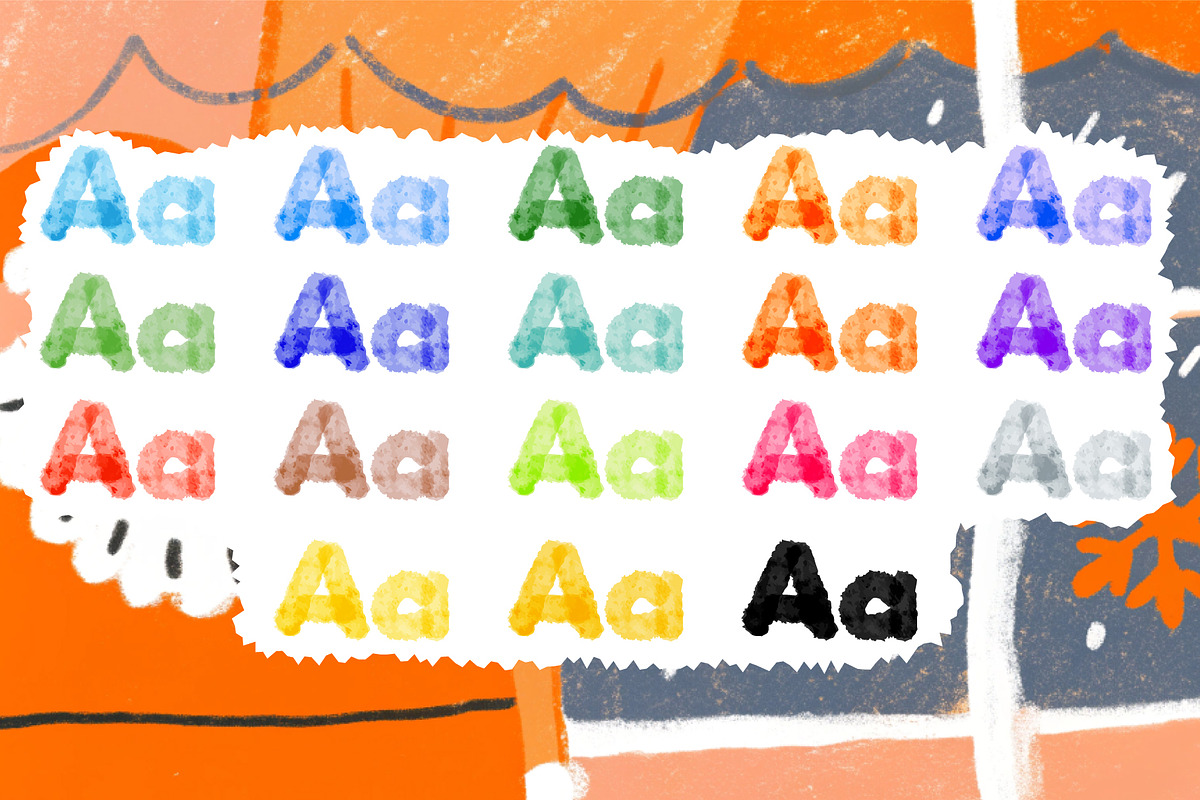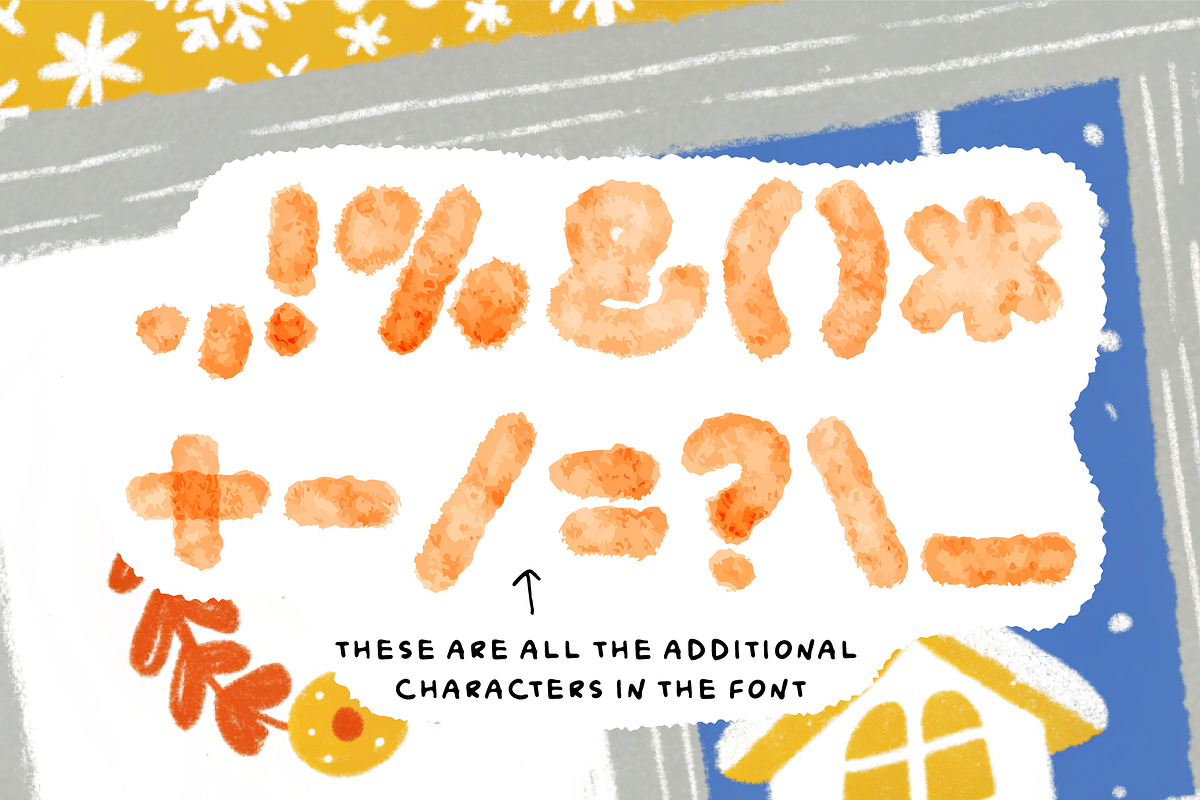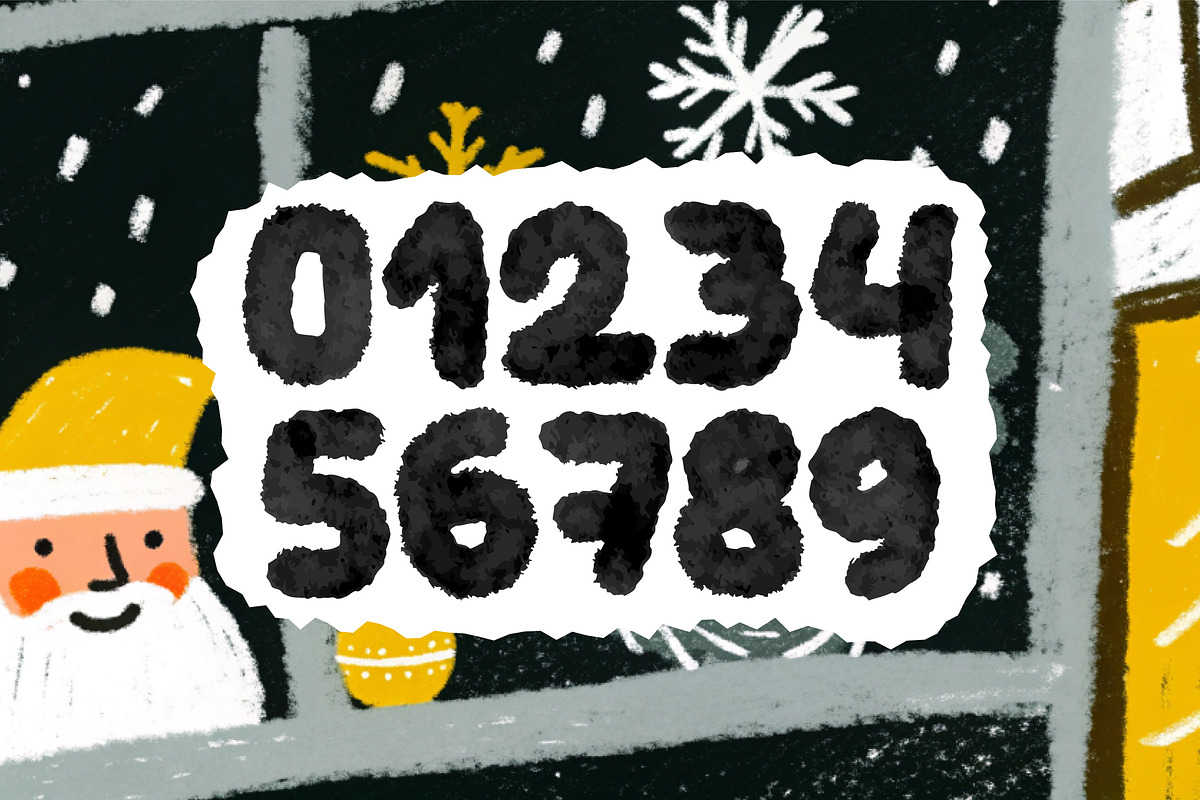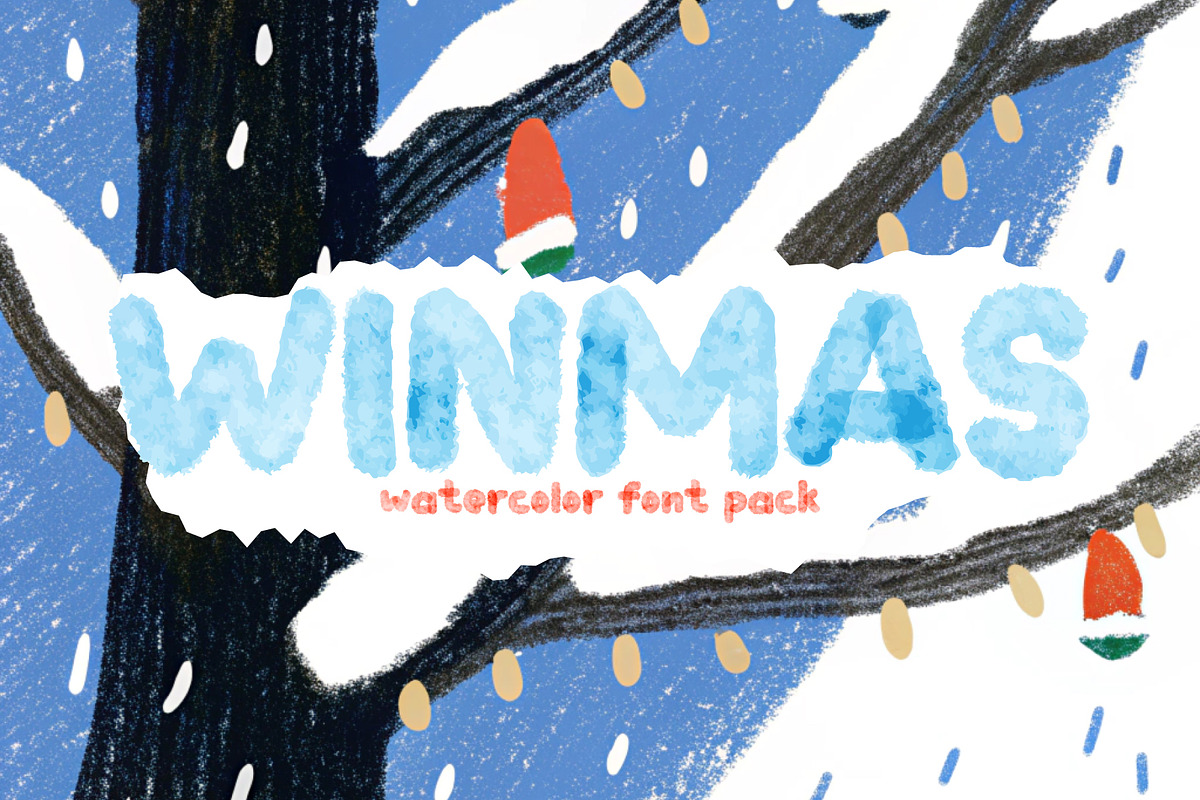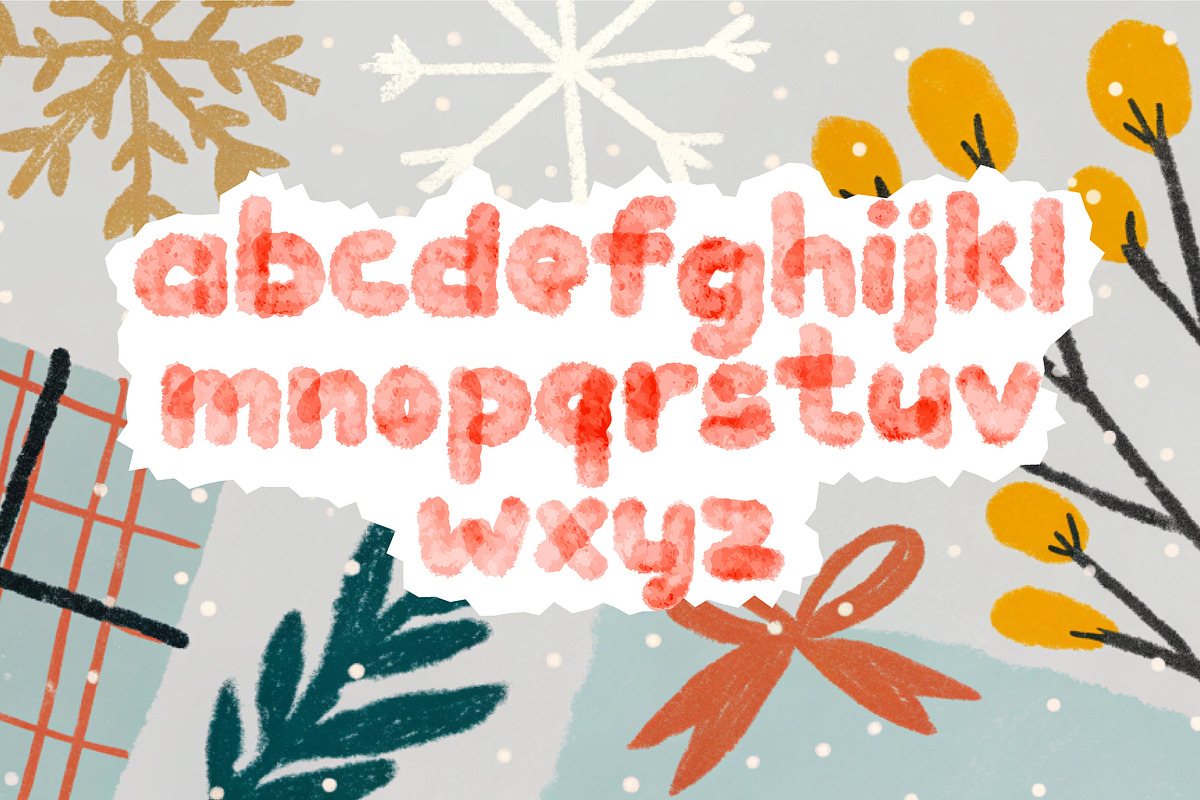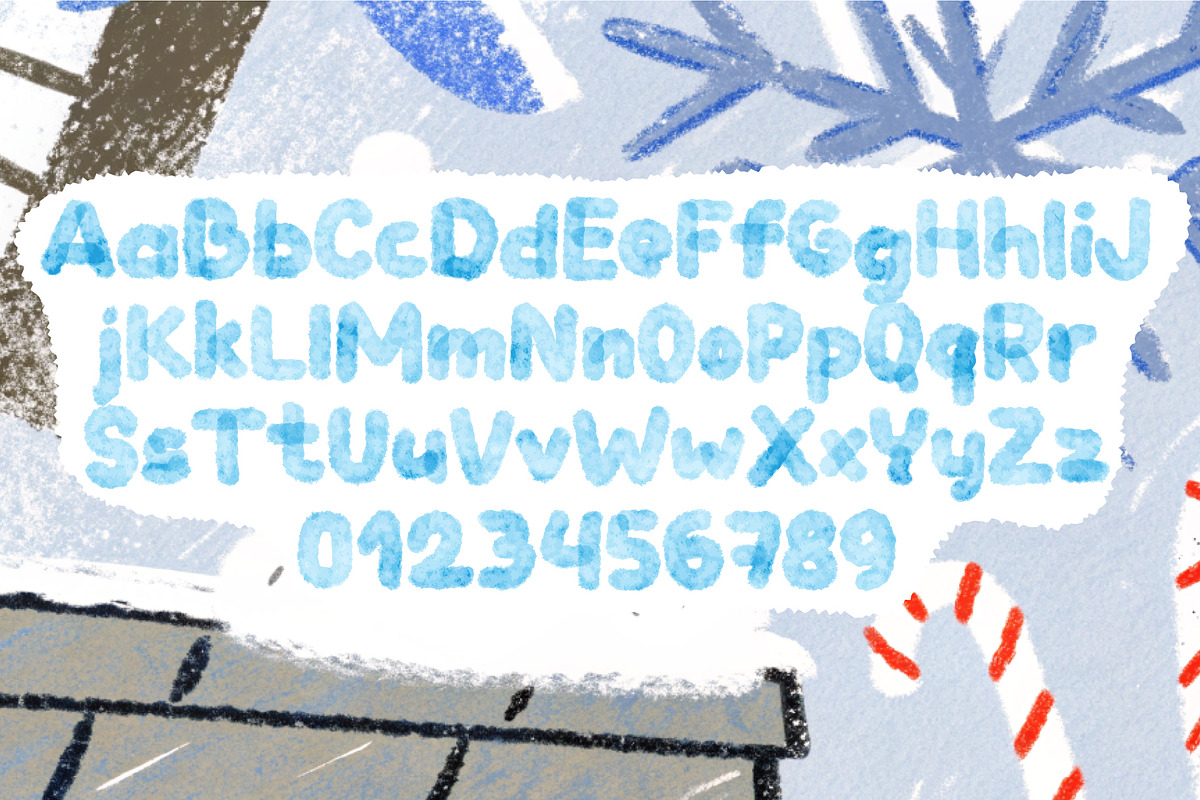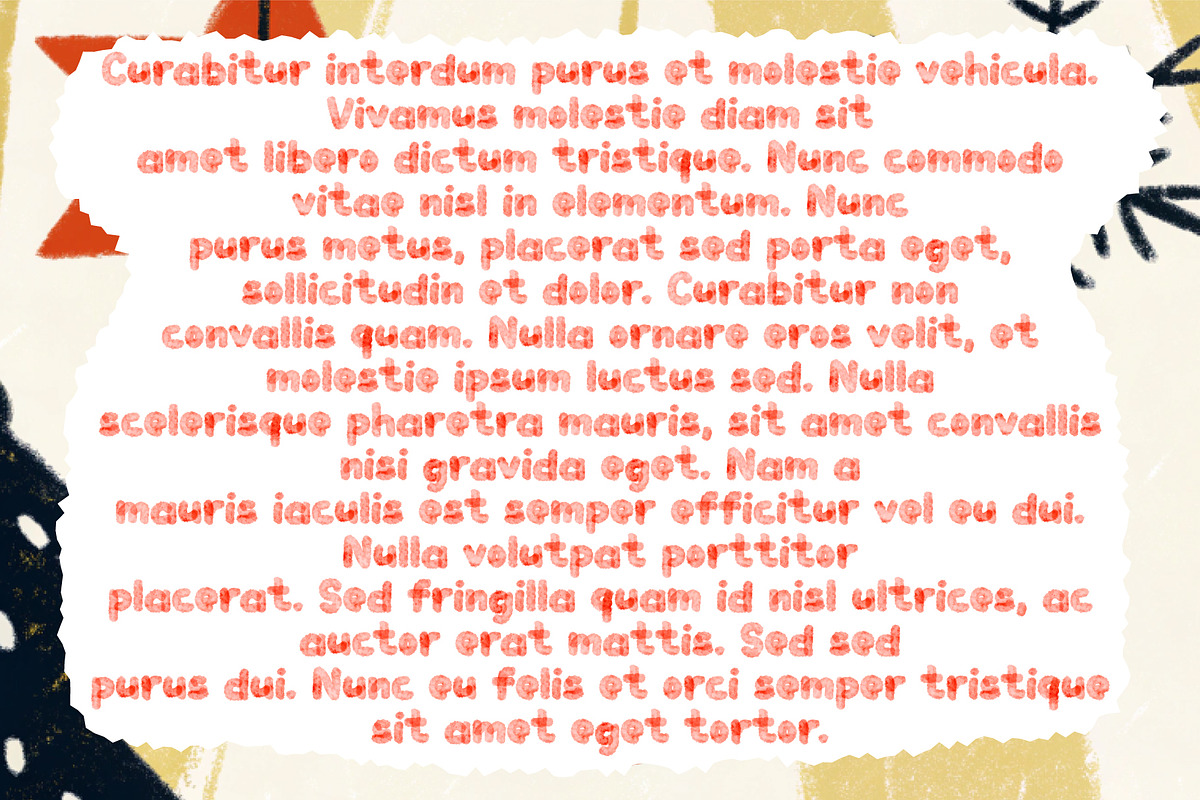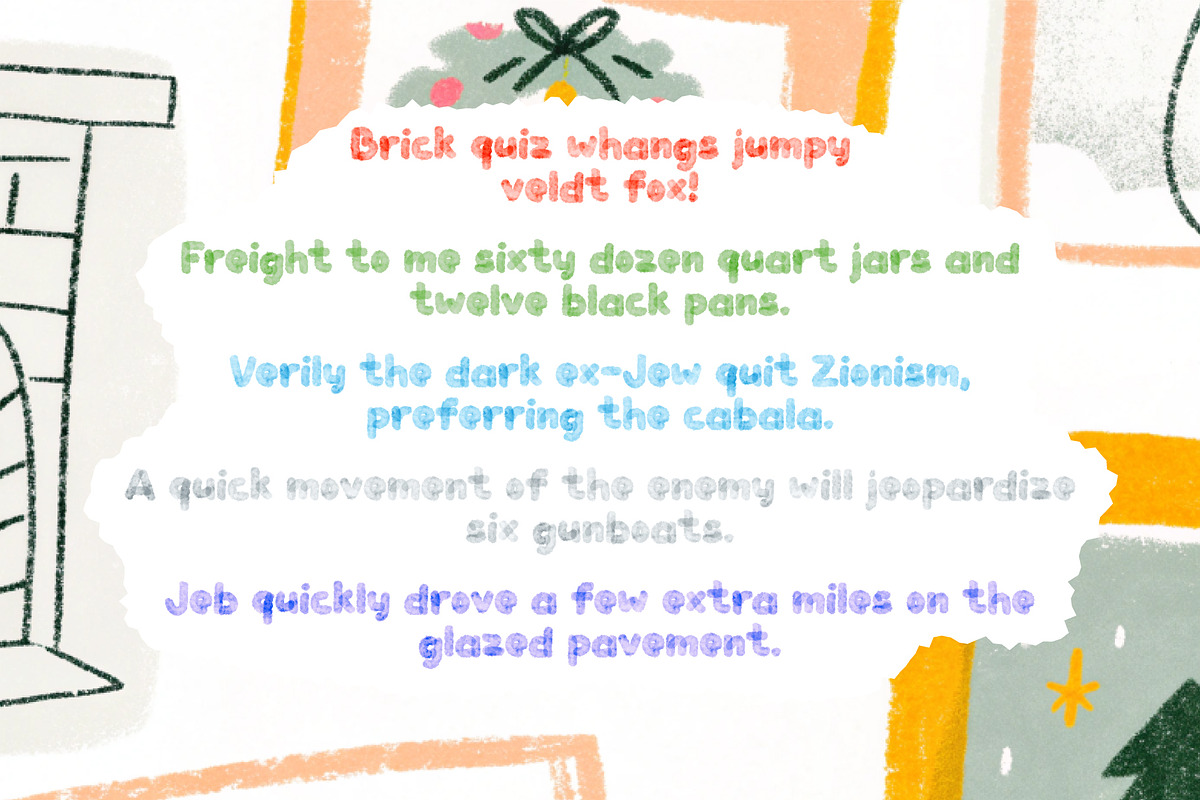
Winmas. OTF SVG Color family.
Small Christmas COLOR SVG font set in a realistic watercolor style. The family contains different colors that are useful in design. Great for Christmas cards and to complement watercolor designs. The fonts are colored and textured like real paint. Enjoy!
Different colors
Watercolor effect
Uppercase and lowercase letters